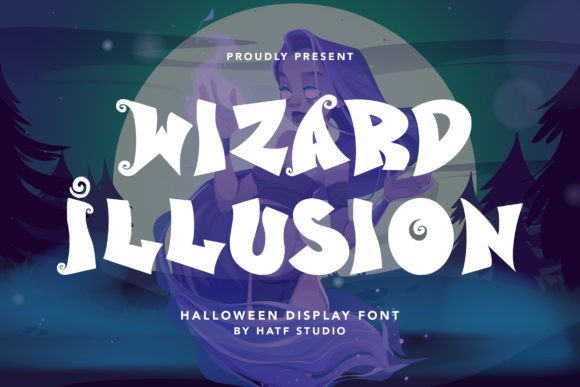
Journey into the Enchanting Realm of Wizard Illusion, the Font That's an Ode to All Things Gothic, Spooky, and Sinister!
Prepare to be spellbound by Wizard Illusion, the dark horse of display fonts, handcrafted with eerie precision to evoke the haunting charm of Halloween and the mystical allure of gothic tales. Inspired by the haunting beauty of the unknown, this font will send chills down your spine with its gnarled edges, haunting glyphs, and devilish allure.
Picture this: Your next sympathy card adorned with the spectral brilliance of Wizard Illusion. Each letter will dance across the page like a phantom, carrying your heartfelt message with a touch of eerie elegance. Your recipients will be captivated by the mysterious aura that surrounds your words, as if whispered by a spirit from beyond.
With Wizard Illusion, you can cast a spell on any project that craves a touch of the macabre. Design posters that conjure the spirit of Halloween, book covers that invite readers to a dark and thrilling journey, and social media graphics that transport your audience to a realm of shadows and secrets. The possibilities are as boundless as your imagination allows.
But Wizard Illusion is more than just a font; it's an experience. As you type, you'll feel the ghostly presence of the font guiding your fingers, whispering tales of haunted mansions and moonlit graveyards. Let your creativity soar as you explore the depths of this font's eerie beauty, conjuring designs that will leave a lasting impression.
Immerse yourself in the world of Wizard Illusion, where the boundaries of reality blur and the supernatural beckons. Embrace the magic of this font and watch as your creations transform into masterpieces that resonate with the spirits of the night.